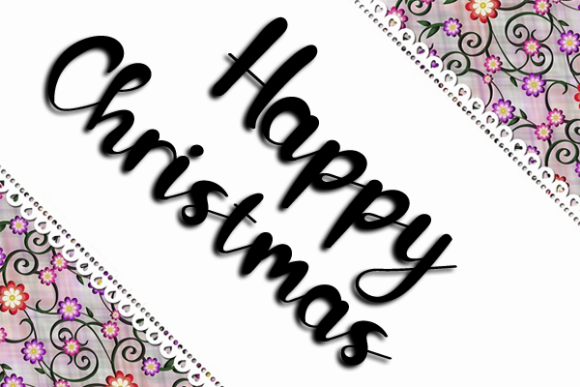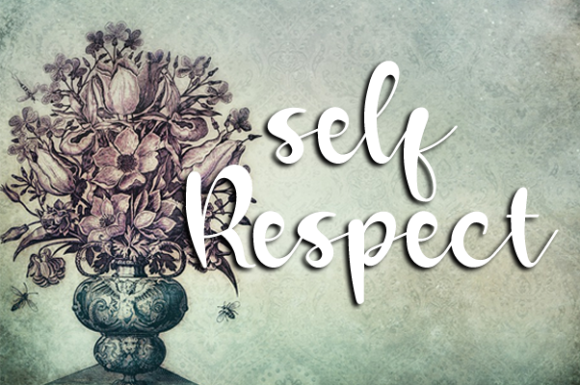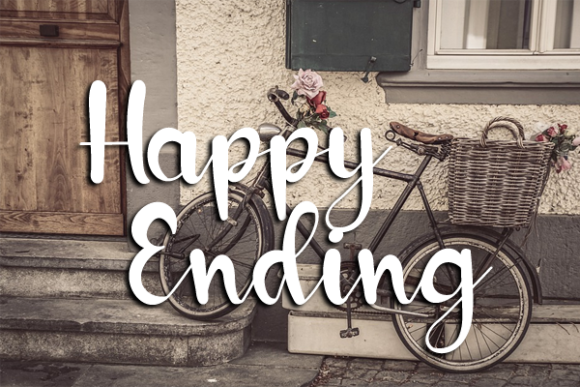
Christmas Vintage Font
About Christmas Vintage Font
Christmas Vintage is a ravishing handwritten font. This versatile script font has a wide spectrum of applications ranging from greeting cards to headlines and is guaranteed to add a romantic feel to your next project.